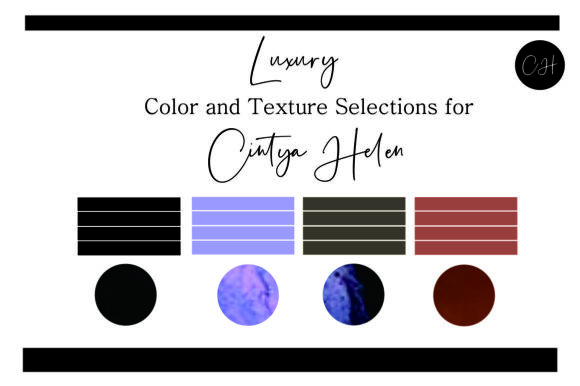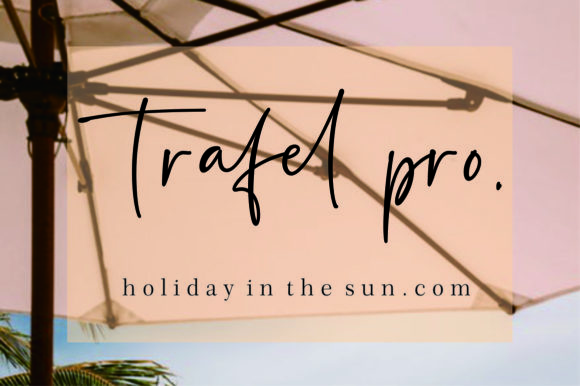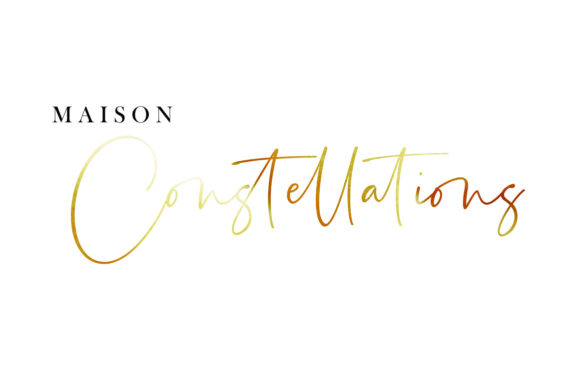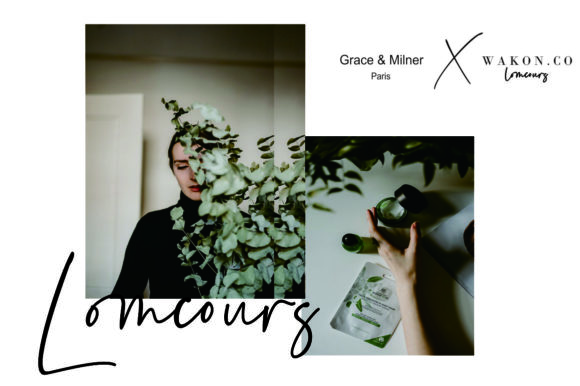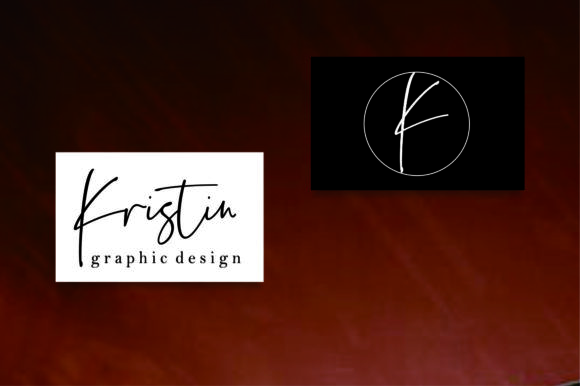
Introducing Estefin Font: Elevate Your Designs with Elegance and Authenticity
Are you tired of using the same old fonts in your designs? Look no further than Estefin Font, a dynamic and handwritten font that brings a touch of natural elegance to any project. With its unique blend of classic elements and contemporary edge, Estefin Font is perfect for designers and crafters looking to add a personal touch to their work.
The Characteristics of Estefin Font
Estefin Font is a true standout in the world of typography. Its natural and authentic strokes give it a handmade feel that’s hard to replicate with digital fonts. The classic elements of Estefin Font evoke a sense of tradition and timelessness, while its contemporary edge keeps it feeling fresh and modern. The result is a font that provides an elegant and beautiful impression, perfect for a wide range of projects.
What Makes Estefin Font So Versatile?
One of the things that sets Estefin Font apart is its incredible versatility. Whether you’re working on a branding project, a wedding invitation, or a craft project, Estefin Font is the perfect choice. Its elegant and sophisticated feel makes it suitable for high-end designs, while its playful and handwritten nature keeps it feeling approachable and friendly.
Use Estefin Font for a Variety of Projects
So, what can you use Estefin Font for? The possibilities are endless! Here are just a few ideas to get you started:
- Branding and Logo Design: Use Estefin Font to create a unique and memorable logo that sets your brand apart.
- Wedding Invitations and Stationery: Add a touch of elegance and sophistication to your wedding invitations and stationery with Estefin Font.
- Crafting and DIY Projects: Use Estefin Font to add a personal touch to your crafting and DIY projects, from handmade cards to customized home decor.
- Digital and Print Media: Estefin Font is perfect for use in digital and print media, including brochures, flyers, and social media graphics.
Why Choose Estefin Font?
With so many fonts to choose from, why should you choose Estefin Font? Here are just a few reasons:
- Unique and Authentic: Estefin Font is a one-of-a-kind font that adds a touch of authenticity to any design.
- Elegant and Sophisticated: Estefin Font has an elegant and sophisticated feel that’s perfect for high-end designs.
- Versatile: Estefin Font can be used for a wide range of projects, from branding and logo design to crafting and DIY projects.
- Easy to Read: Estefin Font is easy to read, even at small sizes, making it perfect for use in digital and print media.
Tips for Using Estefin Font
Here are a few tips for getting the most out of Estefin Font:
- Use it as a Headline Font: Estefin Font is perfect for use as a headline font, where its elegant and sophisticated feel can really shine.
- Pair it with a Simple Font: Pair Estefin Font with a simple font, such as Arial or Helvetica, to create a striking contrast.
- Experiment with Colors: Estefin Font looks great in a variety of colors, so don’t be afraid to experiment and find the perfect shade for your design.
Estefin Font is a dynamic and handwritten font that brings a touch of natural elegance to any project. With its unique blend of classic elements and contemporary edge, it’s perfect for designers and crafters looking to add a personal touch to their work. Whether you’re working on a branding project, a wedding invitation, or a craft project, Estefin Font is the perfect choice. So why wait? Download Estefin Font today and start elevating your designs with elegance and authenticity!